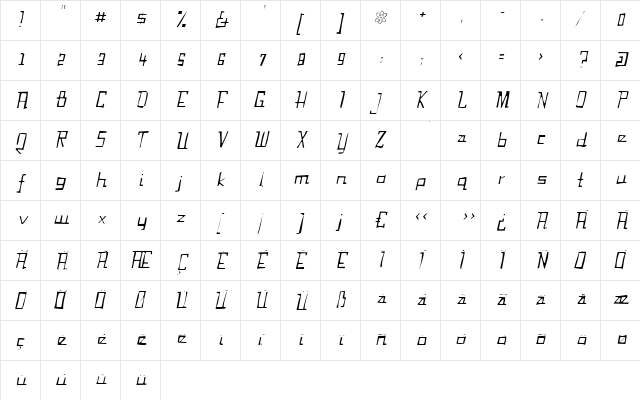
Fabian Gaunt Italic
| Designer | Ray Larabie \ Larabie Fonts |
Design Context for Fabian Gaunt Typeface
Fabian Gaunt is a composed and adaptable typeface that performs quietly and consistently across a wide range of design contexts. The dynamic lean of this cut emphasises speed and emphasis in any layout.